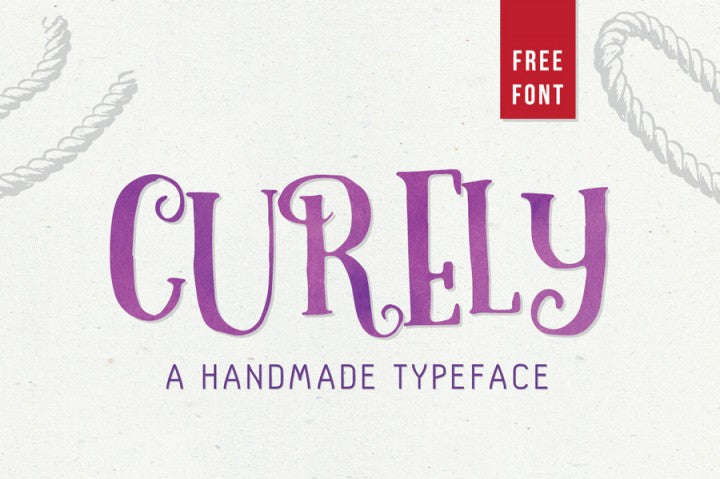
Free Curely Typeface
Download and enjoy this free curely typeface. Cool typeface to showcase your designs in a modern way. Download this free font from the original source of The Hungry JPEG. You can create a professional designs with this fancy font.